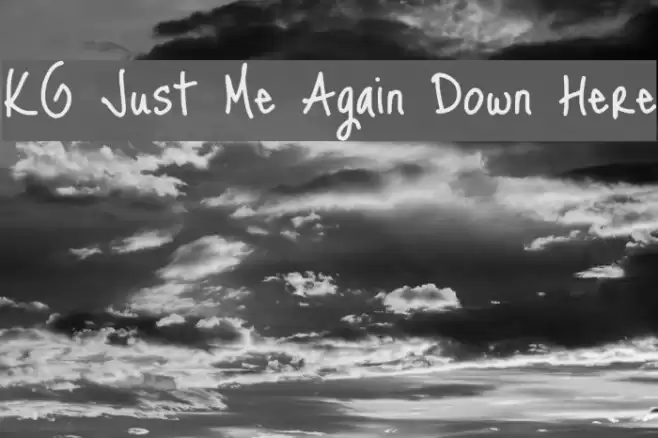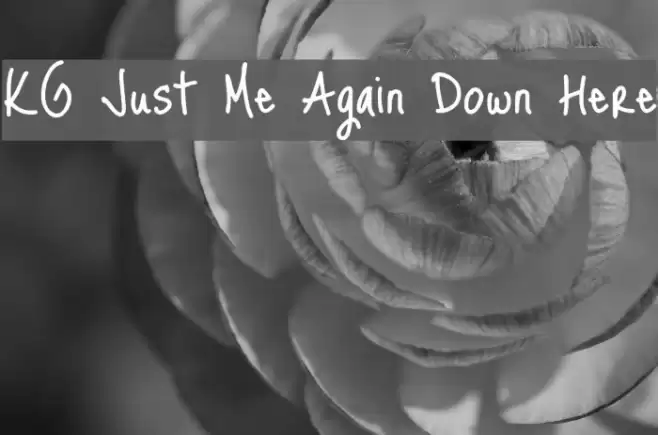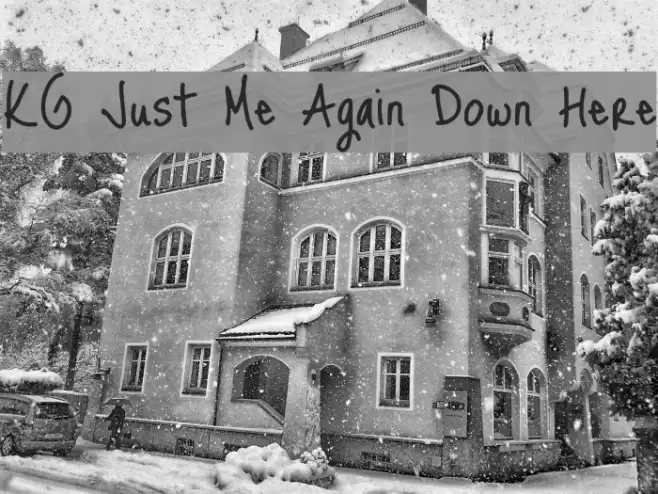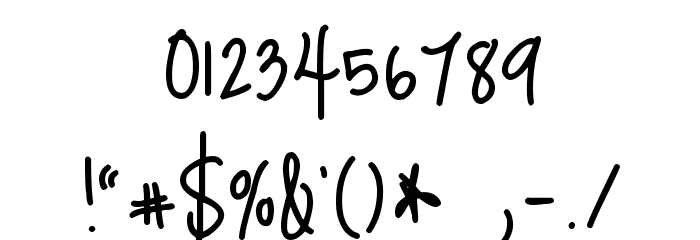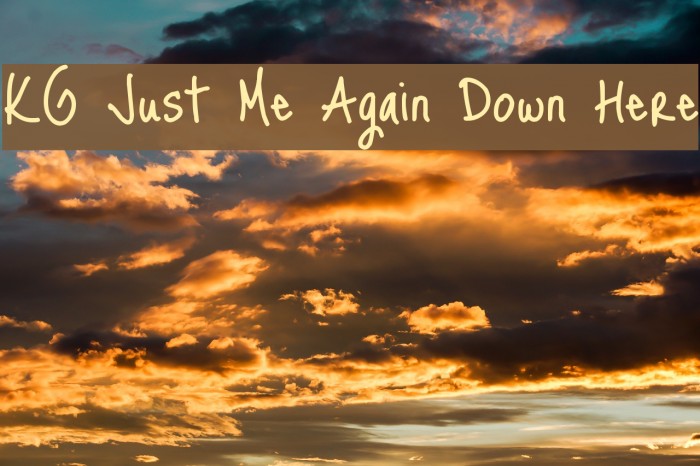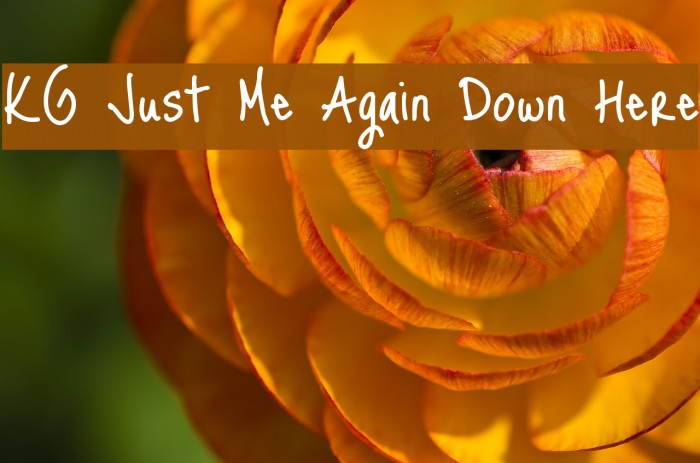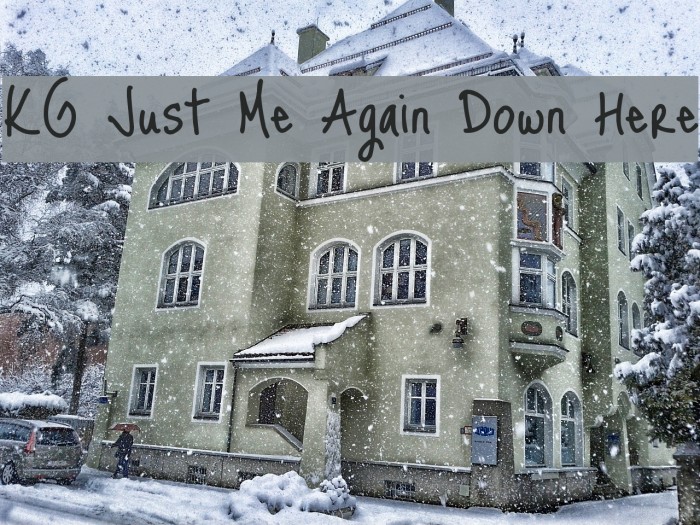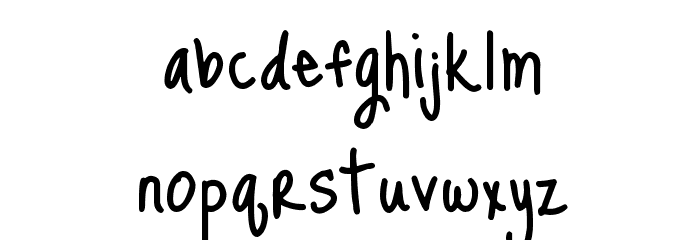
KG Just Me Again Down Here Font
KG Just Me Again Down Here Description
This font features a playful and casual handwritten style, characterized by its uneven strokes and informal appearance. The letters have a natural flow, mimicking the look of writing with a marker or pen. The uppercase letters are bold and slightly larger than the lowercase, which are more rounded and compact. Numbers and special characters maintain the same whimsical style, adding to the font's overall charm. The font's design is approachable and friendly, making it suitable for projects that require a personal touch.
A playful, casual handwritten font with a friendly and informal style from Uncategorized fonts.
- Proposed Projects: Ideal for greeting cards, children's books, personal notes, and informal branding projects.
- Overall Style: Casual
- Use Case: Headlines, Informal text, Personal projects